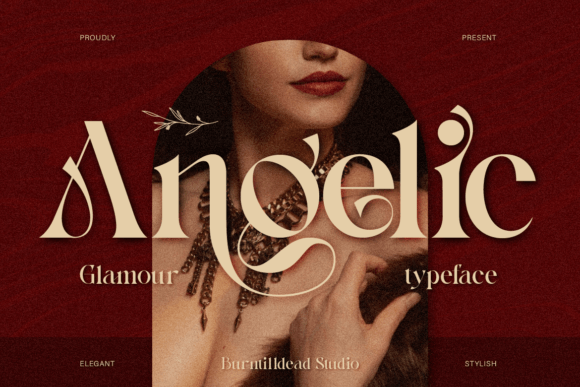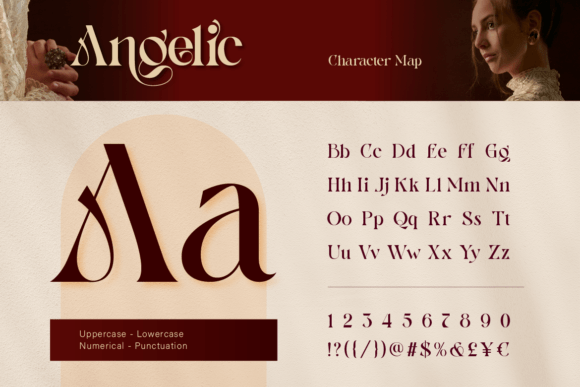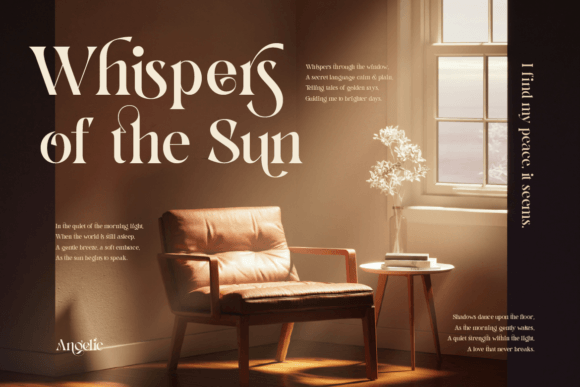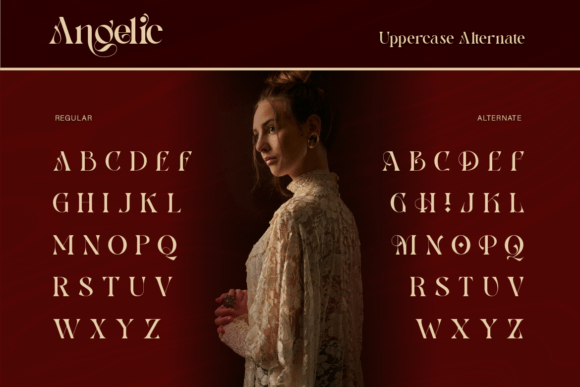
Angelic Font: Luxury Serif & Script Font for Elegant Branding
About the Angelic Font
Step up your design game with Angelic Font, a font that exudes confidence and style. Introducing Angelic, a serif typeface that embodies luxury, elegance, and modern style. Its clean lines and graceful curves create a sophisticated and refined look for any design. Ideal for luxury-themed projects, fashion magazines, high-end branding, editorial layouts, and elegant invitations.
Angelic’s refined elegance makes it perfect for headlines, logos, and short-form text in high-end branding projects, fashion publications, and luxury packaging. It also excels in creating a sophisticated feel for invitations and short editorial pieces. However, its delicate serifs make it less suitable for body text or UI elements where readability over extended lengths is crucial.
Consider pairing Angelic with a clean sans-serif like Helvetica Neue for a modern contrast, or a warmer, more organic sans-serif such as Lato for a softer feel. For a more traditional approach, a neutral serif like Garamond could provide excellent balance. Avoid pairing it with overly playful or heavily decorative fonts that might clash with its inherent sophistication.
The overall personality of Angelic is sophisticated and elegant, conveying luxury and refinement. Its restrained curves and clean lines project a sense of modern classicism, ideal for brands prioritizing timeless appeal and high quality.